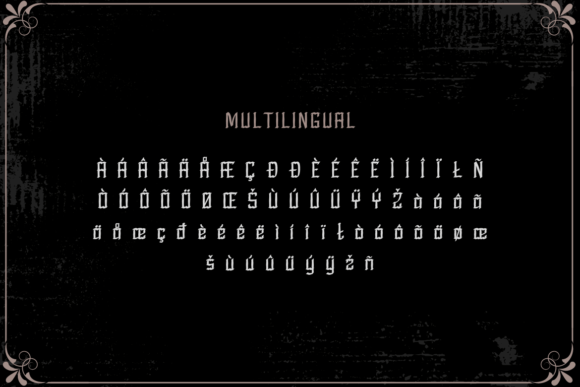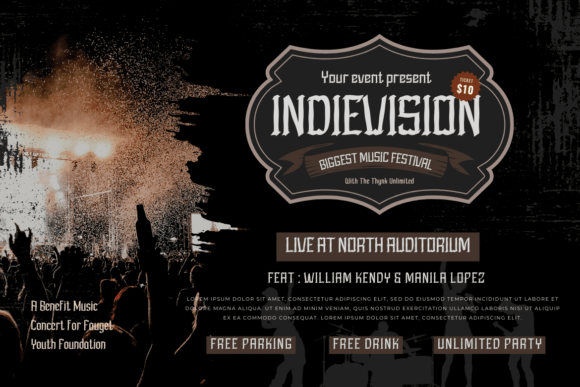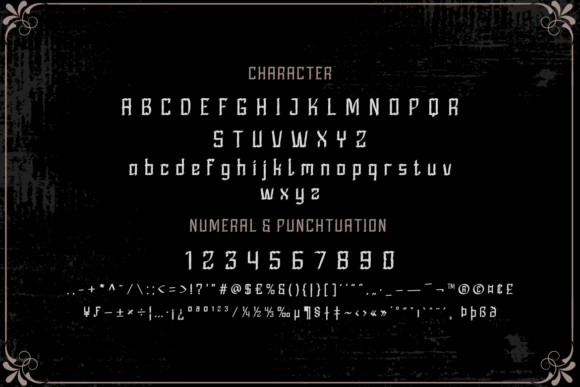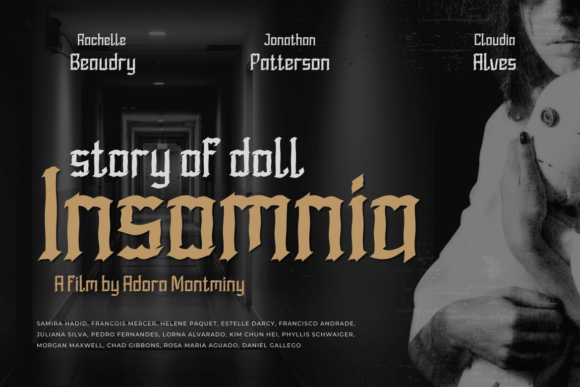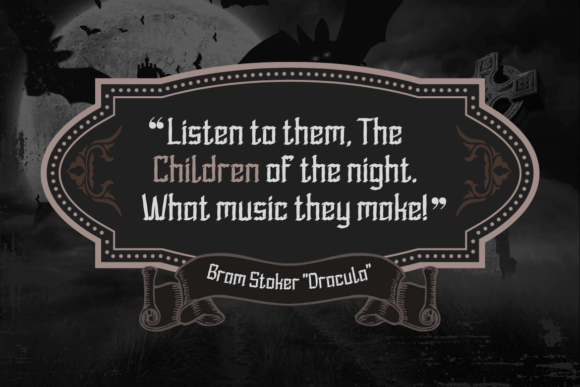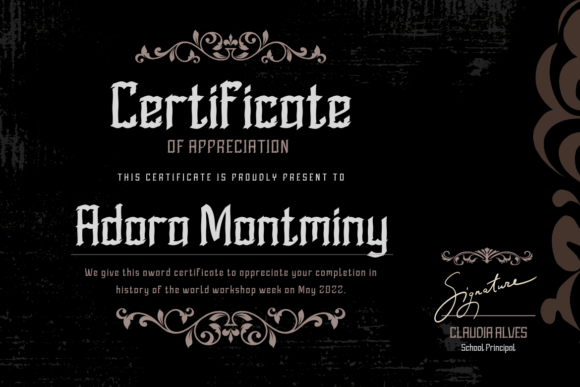
Introduction to Rheson Font Font
Fonts play a crucial role in design, and the Rheson Font font is a typeface that brings both character and versatility to any project. Whether you’re working on a branding project, a website, or a print design, the Rheson Font font offers a unique style that can elevate your work.
Rheson is the ideal font for any project that requires a small amount of Gothic flair.
Its various lovely and harmonious shapes let you select the perfect typography for your project The best part is that this font is of a high caliber, so you can be sure that your logos, labels, badges, or posters, will all look their best.
Key Features of Rheson Font Font
Why Choose Rheson Font Font?
The Rheson Font font is more than just a typeface – it’s a design tool that helps you communicate your message with style and clarity. Its unique character set and versatile design make it suitable for a wide range of applications, from elegant invitations to bold headlines.
With its carefully crafted letterforms and balanced proportions, the Rheson Font font ensures readability and visual appeal across all mediums.
What makes Rheson Font font special?
The Rheson Font font stands out with its unique design, exceptional readability, and versatility across various design applications.